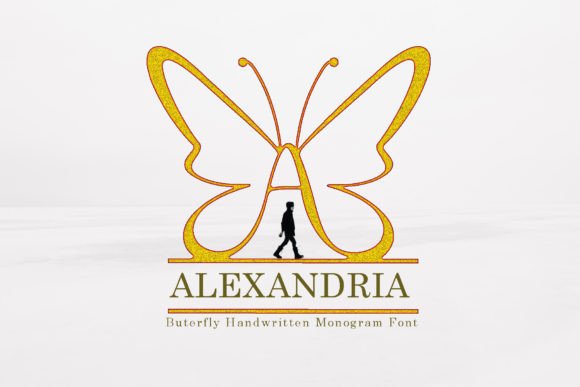
Prepare your heart for an exquisite typographic journey as you explore the Alexandria Monogram Font, a breathtaking script family that captures the essence of love and romance. This stunning font will transport you to a realm of heartfelt expression, where each letter dances with elegance and charm.
Picture the joy of expressing your deepest emotions with this remarkable font, crafted by the skilled hands of Sulthan Studio. Discover the allure of hand-drawn butterflies fluttering amidst the uppercase and lowercase characters, adding a whimsical touch to your creative projects.
Whether you're crafting heartfelt letters to a loved one, designing enchanting invitations for a special occasion, or creating whimsical designs for a child's room, the Alexandria Monogram Font will weave a tapestry of emotions into your work.
With its versatility, this font adapts effortlessly to both playful and sophisticated projects. Imagine the delight of your audience as they receive your love letters, penned with the Alexandria Monogram Font. Its graceful strokes will evoke a sense of timeless romance, leaving a lasting impression on their hearts.
Unleash your creativity and watch as the Alexandria Monogram Font elevates your designs to new heights. Let your imagination soar as you explore the endless possibilities this font offers, transforming your projects into expressions of heartfelt beauty.
Experience the magic of Alexandria Monogram Font today and embrace the transformative power of love and romance in your creative endeavors. Dive into a world of captivating typography and let your designs bloom with the beauty of this remarkable font.